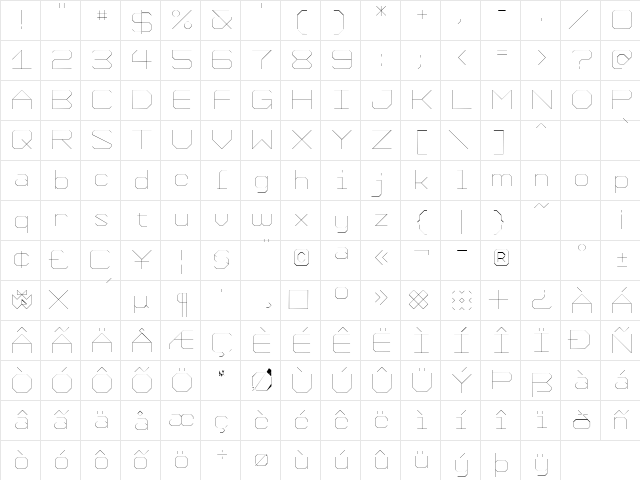
Formation Thin
| Foundry | YouWorkForThem |
| Designer | Michael Cina |
Design Context for Formation Typeface
Formation is a composed and adaptable typeface that performs quietly and consistently across a wide range of design contexts. Its slender proportions lend an understated elegance to any composition.